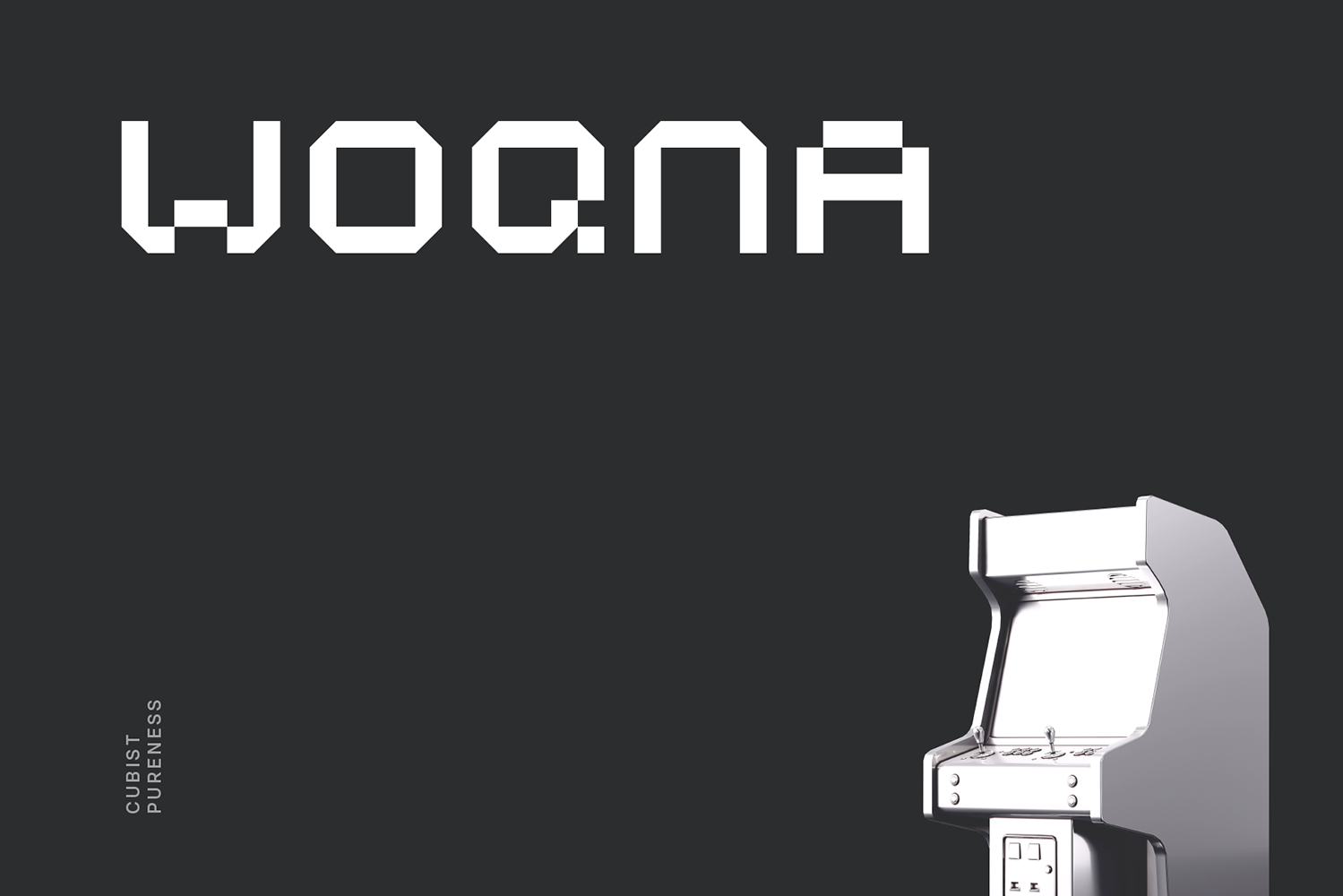
Woqna Pixel Block Tech Font
Woqna is a cubist pureness tech sans apt for headline, editorial, branding, packaging, printed materials and typographic applications. Ultra modern character blend with simplicity of smooth rigid curves, subliminal contour and monoline interpretation introduced futurism sensuality through restraint form. 150+ glyphs with ligatures and fractions provided in opentype .otf and .woff format.